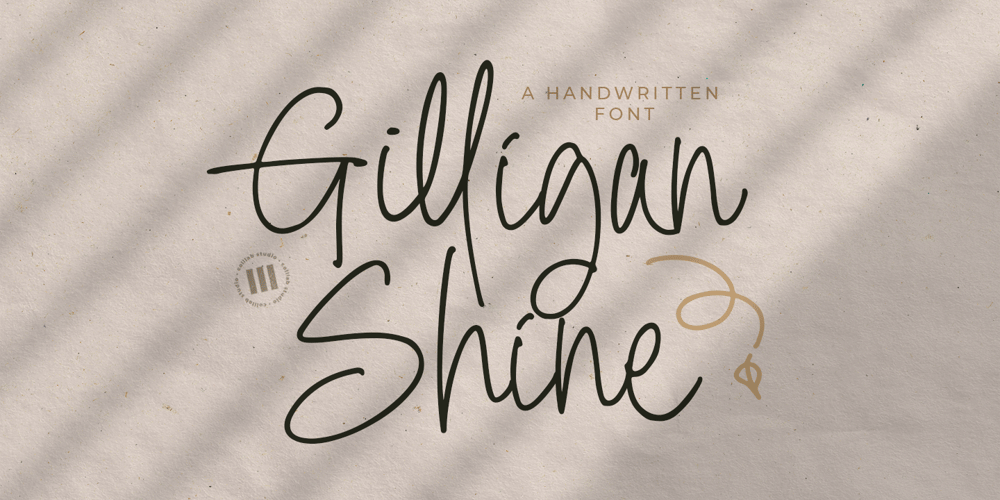
Gilligan Shine Font Family was designed by Muh. Aswar and published by Colllab Studio. Gilligan Shine contains 1 styles and family package options. Presenting Gilligan Shine! A Handwritten Monoline Font with some Ligatures and Extra Dingbats. This font made with the perfect combining of each character. You can combine with Extra to get a unique combining. It looks original and can be used for all your project needs. Each glyph has its own uniqueness and when meeting with others will provide dynamic and pleasing proximity. This font can be used at any time and any project. You can see in the presentation picture above, Gilligan Shine looks stylish and unique on design projects.So, Gilligan Shine can’t wait to give its touch to all your design projects such as quotes, poster design, personal branding, promotional materials, website, logotype, product packaging, etc.Besides that, Gilligan Shine also has some ligature that gives a surprise when you type certain characters combining. The ligatures are or, ss, on, ill, st, of, ar, arr, rr, ff, ll, tt, at, it, and itt.WHAT’S INCLUDED?1. Gilligan Shine • The first version comes with uppercase, lowercase, ligatures, numeral, punctuation, symbols, and Standard Latin Multilingual Support (Afrikaans, Albanian, Catalan, Danish, Dutch, English, French, German, Icelandic, Indonesian, Italian, Malay, Norwegian, Portuguese, Spanisch, Swedish, Zulu, and More).2. Extra Dingbat • Included 19 Dingbats. You can feature all with typing c_1 until c_19A Million ThanksColllab Studio